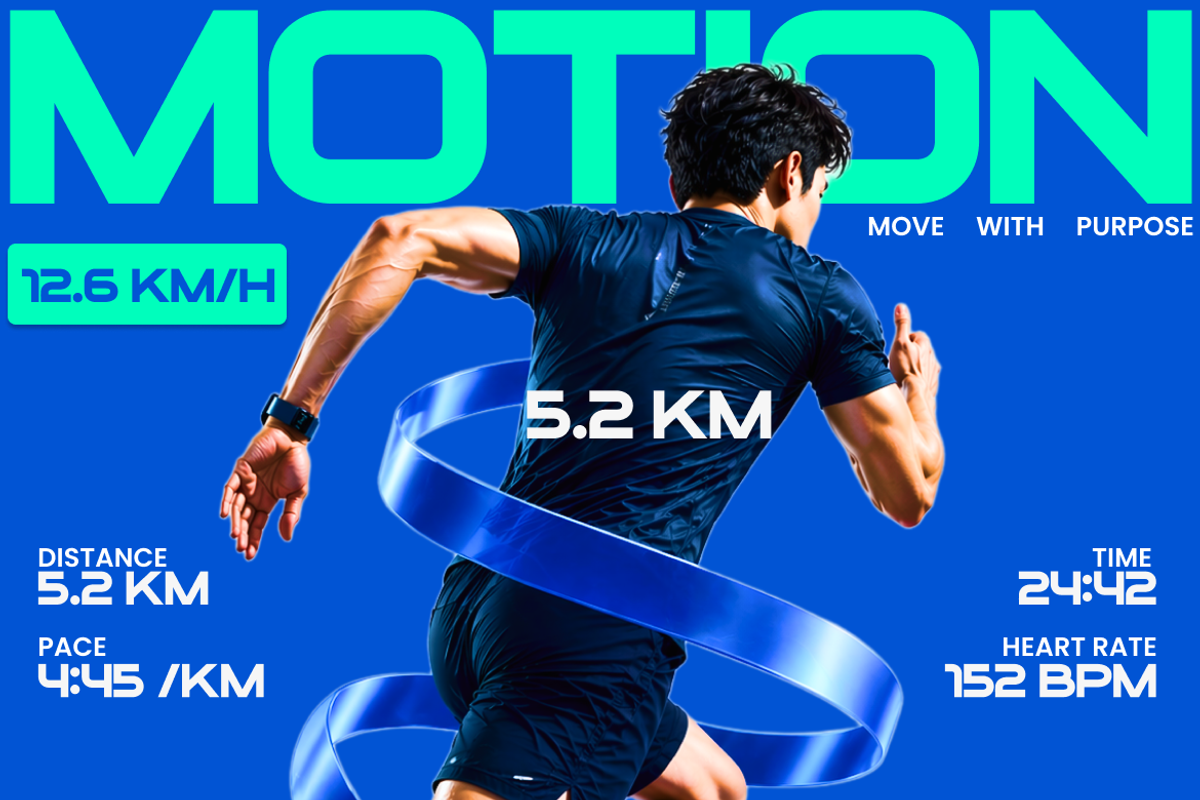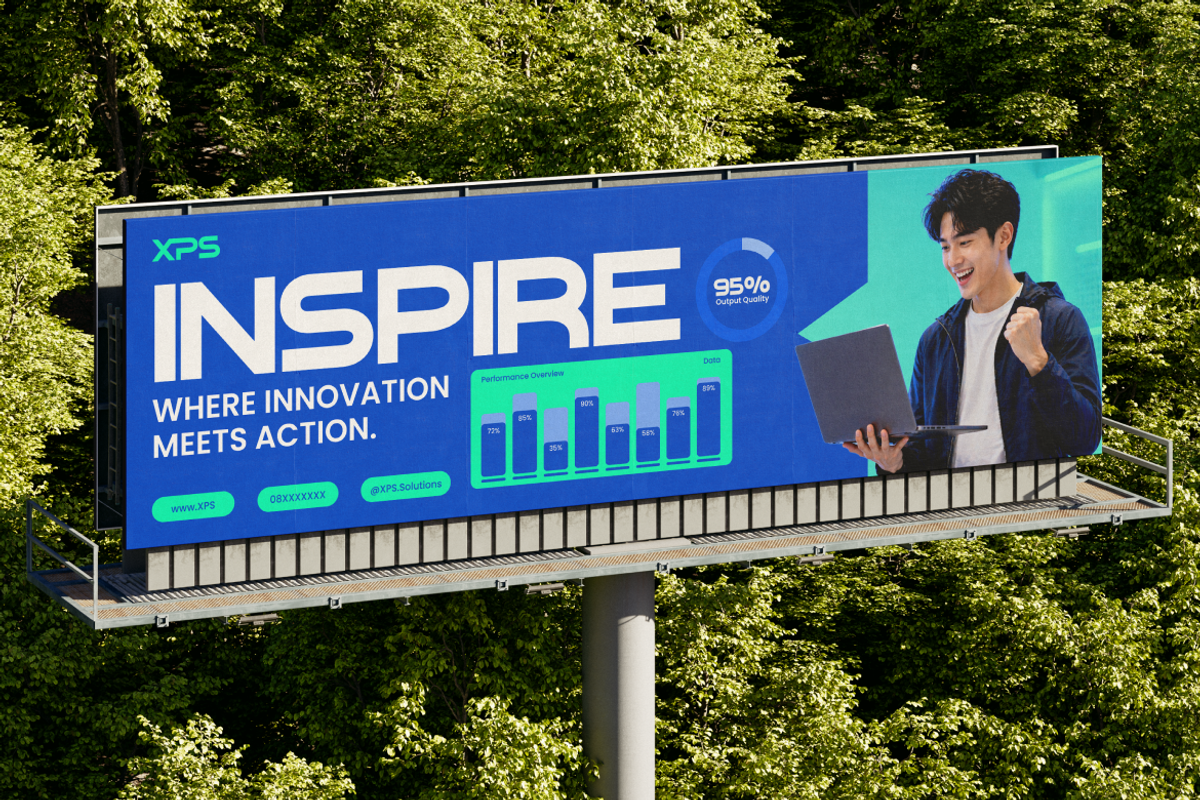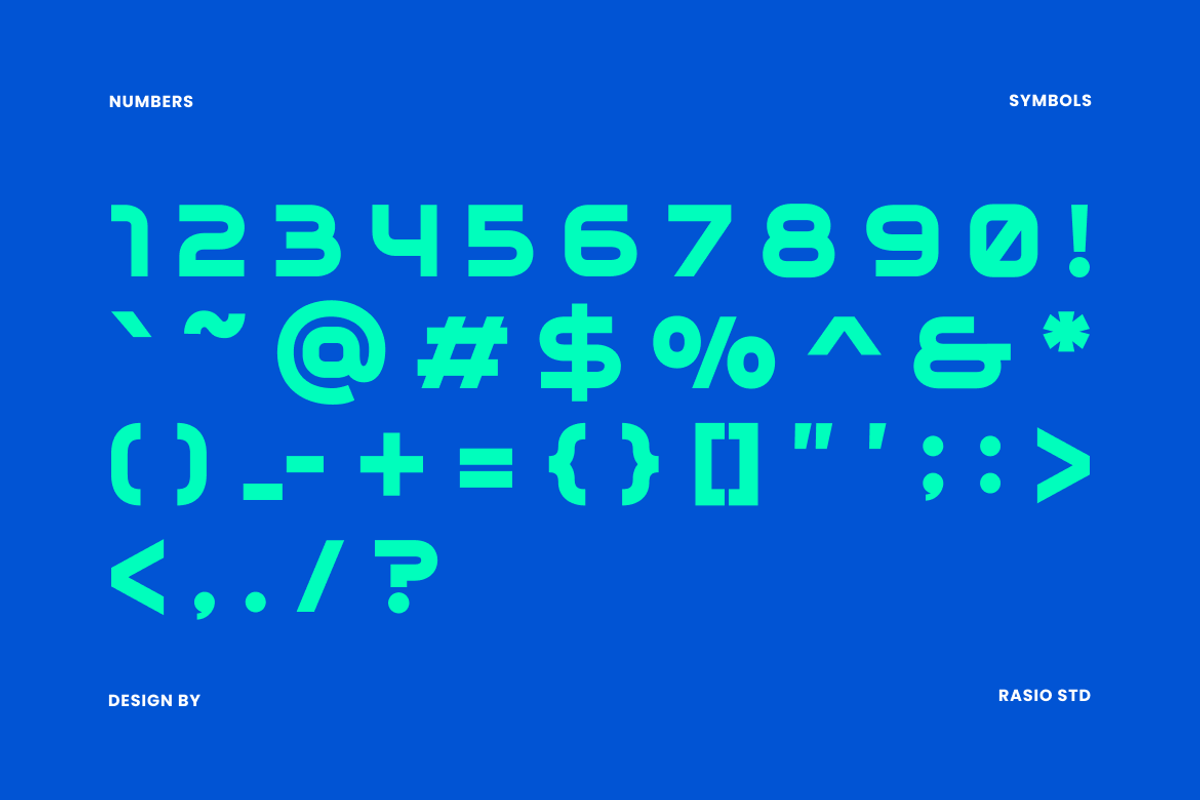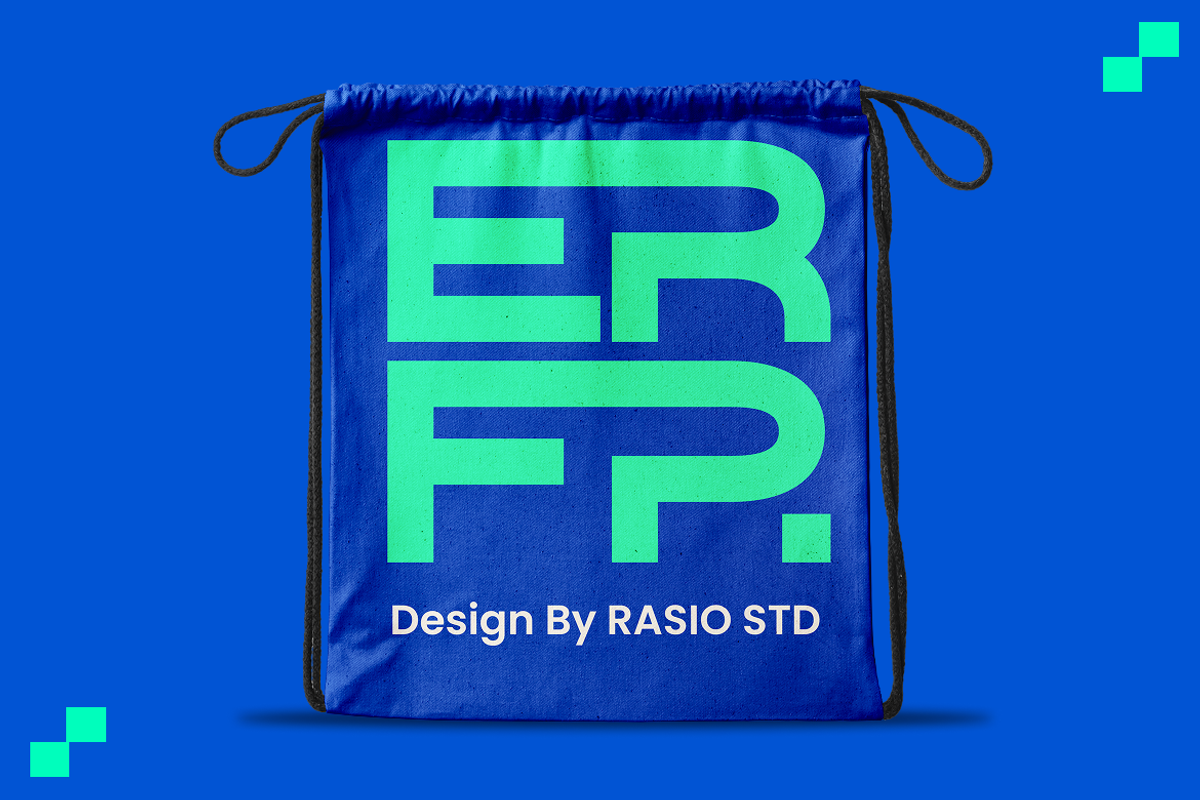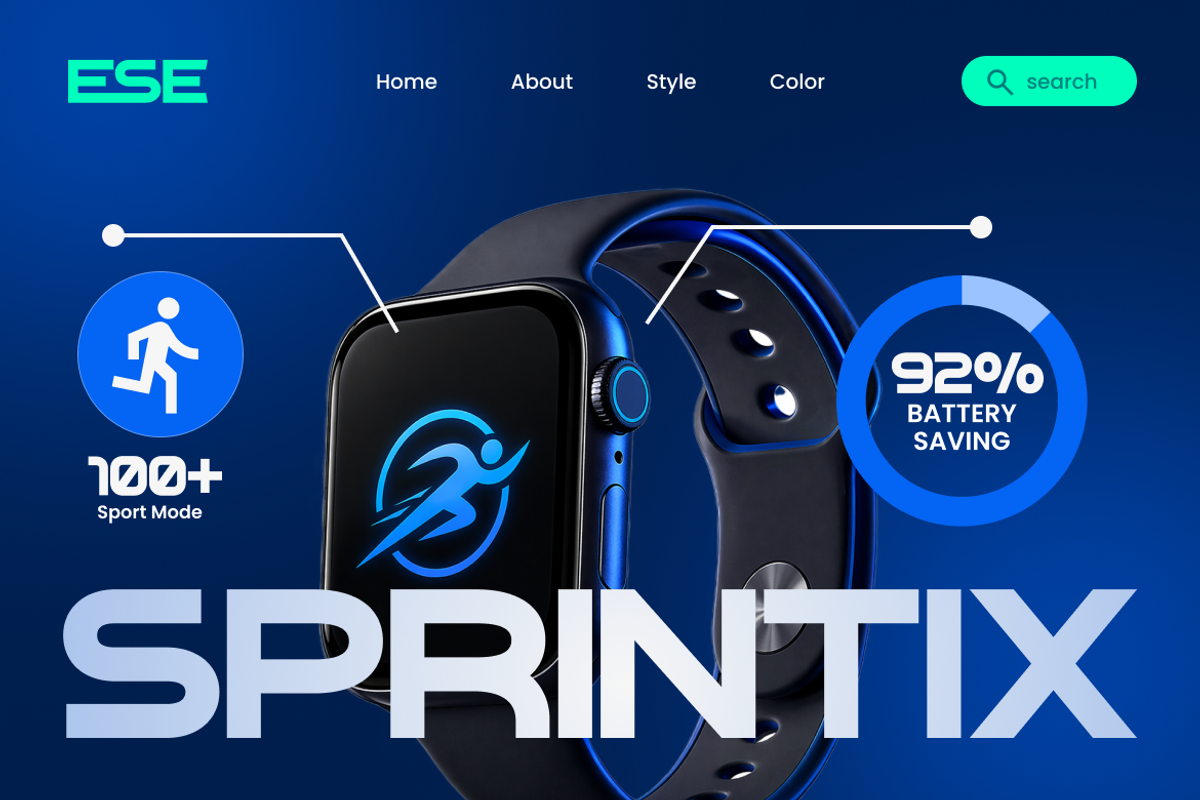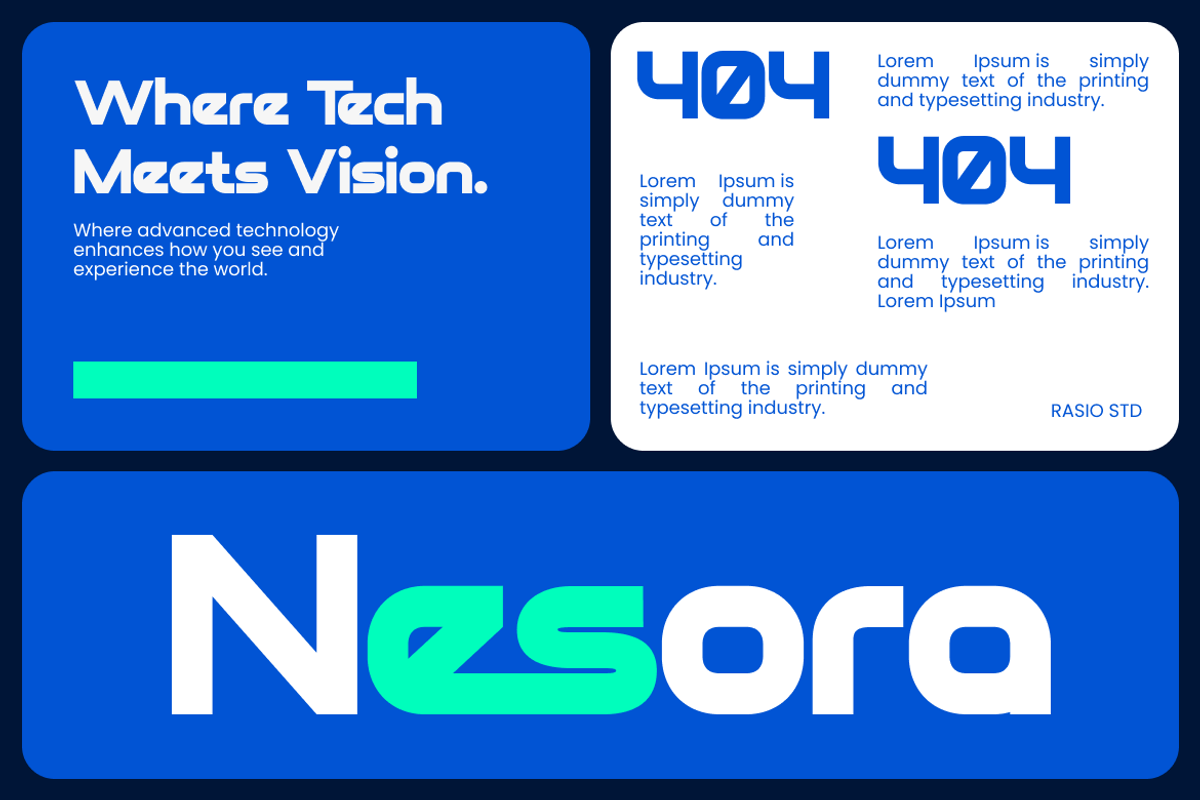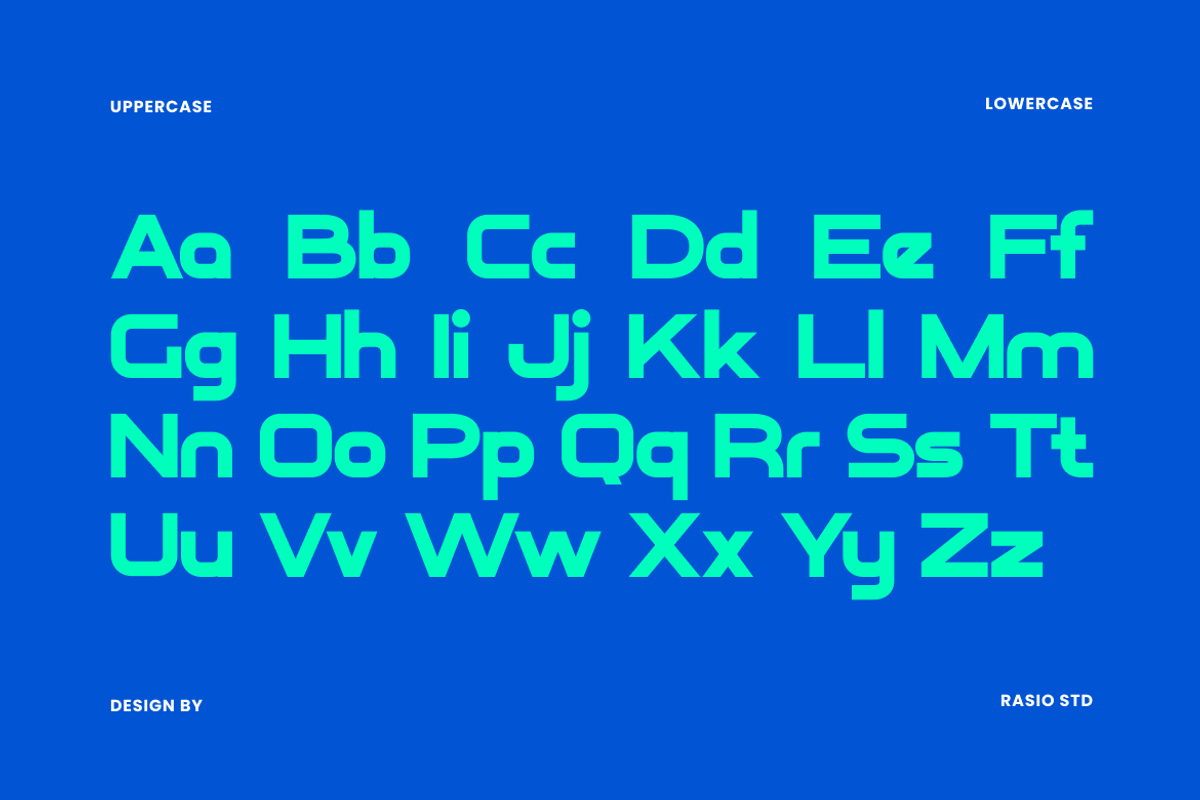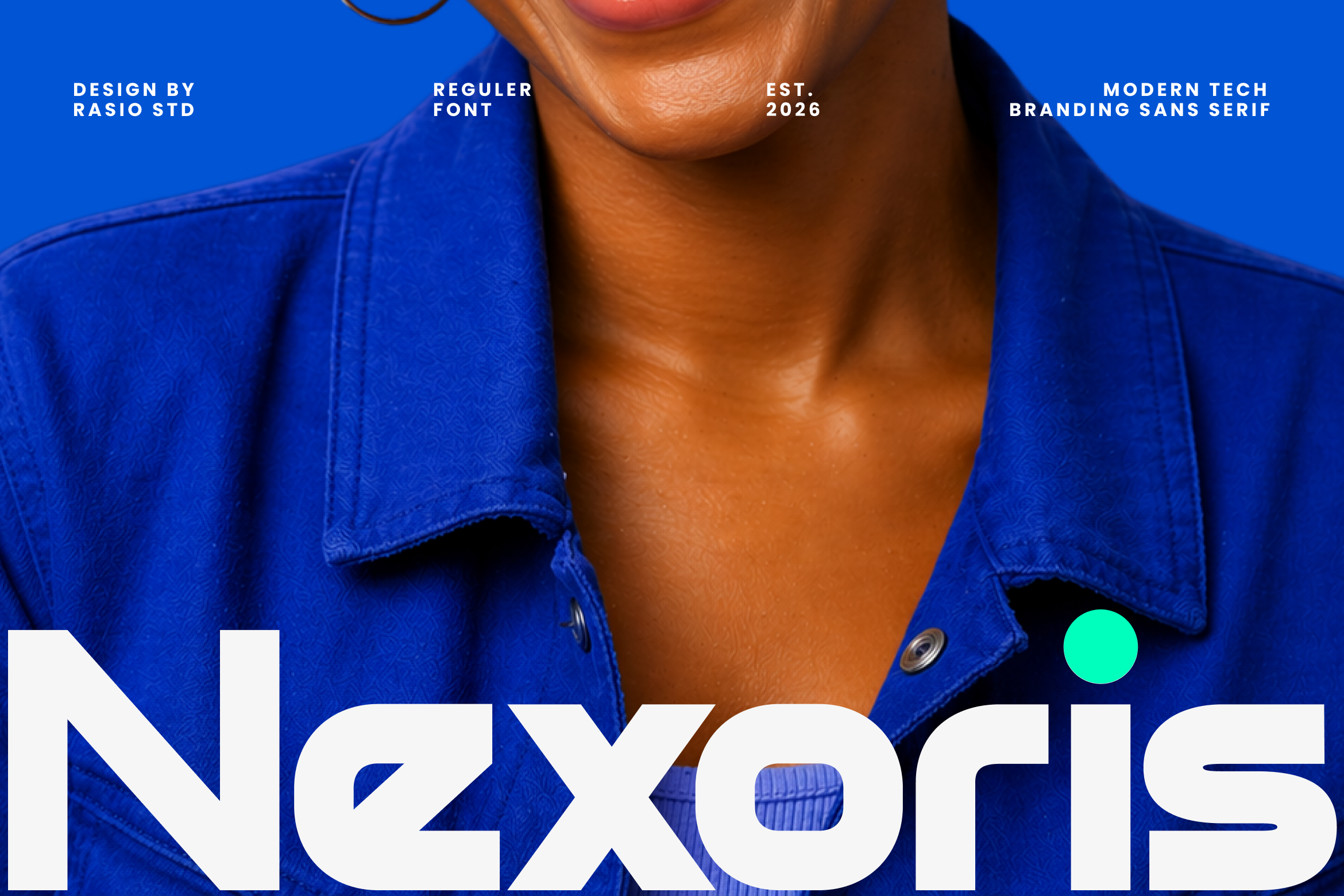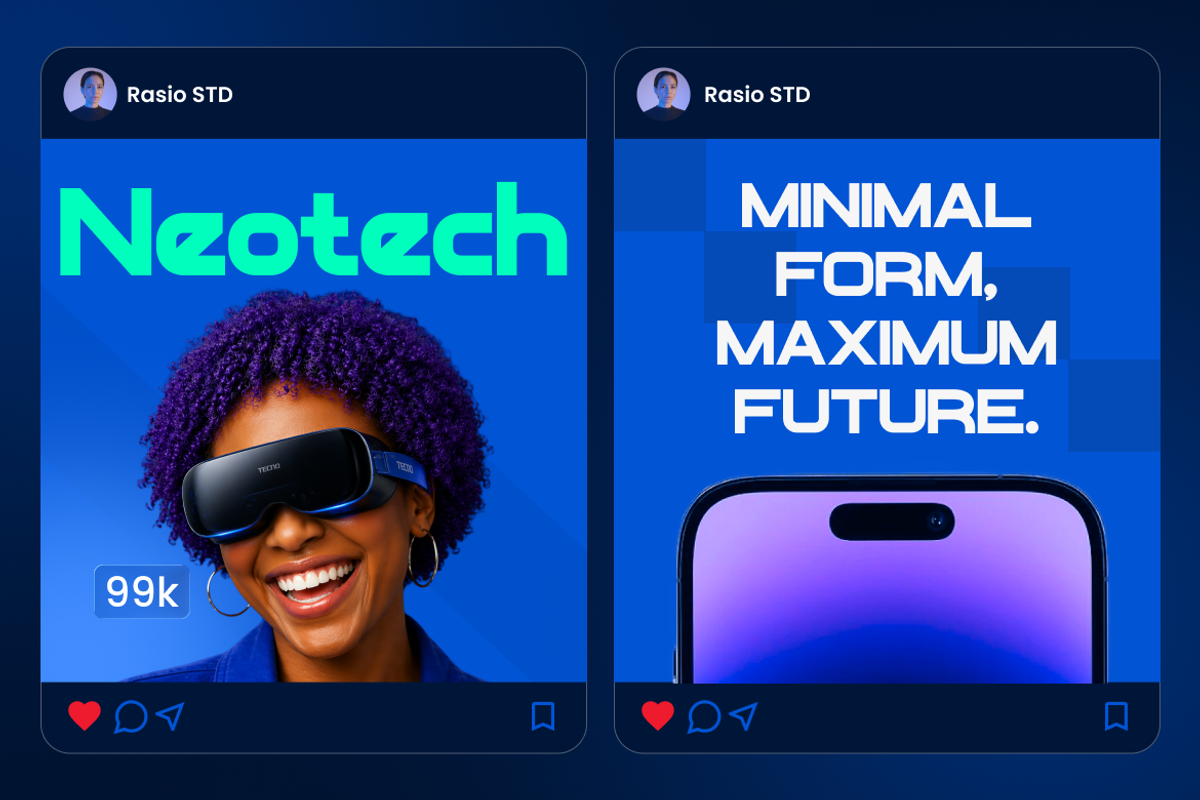
Nexoris Modern Branding Sans Font
Relevance and Use Cases is perfect for technology branding, startup identity systems, SaaS platforms, mobile applications, UI/UX interfaces, dashboards, web design, and digital products that require clarity and a forward-thinking visual tone, extending to advertising campaigns, social media content, product launches, modern presentations, pitch decks, corporate communication, innovation-focused visuals.
Geometric structure with refined futuristic proportions and consistent stroke rhythm
Bold weight that enhances visibility and creates strong visual hierarchy
Clean, sharp edges optimized for both digital screens and print clarity
Condensed form that maximizes space efficiency without losing legibility
Balanced spacing and kerning for smooth reading across large and small sizes
Tech startup branding, SaaS platforms, and digital product identity
UI/UX interfaces, dashboards, and mobile app typography systems
Website headers, landing pages, and modern web design layouts
Advertising campaigns, digital marketing visuals, and social media graphics
Corporate presentations, innovation-focused branding, and business materials
Screen-optimized kerning for responsive web design
Supports numerals, punctuation, and extensive symbol set